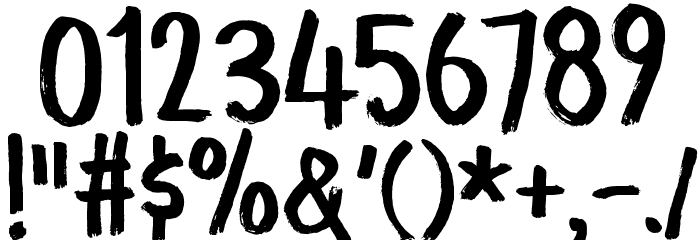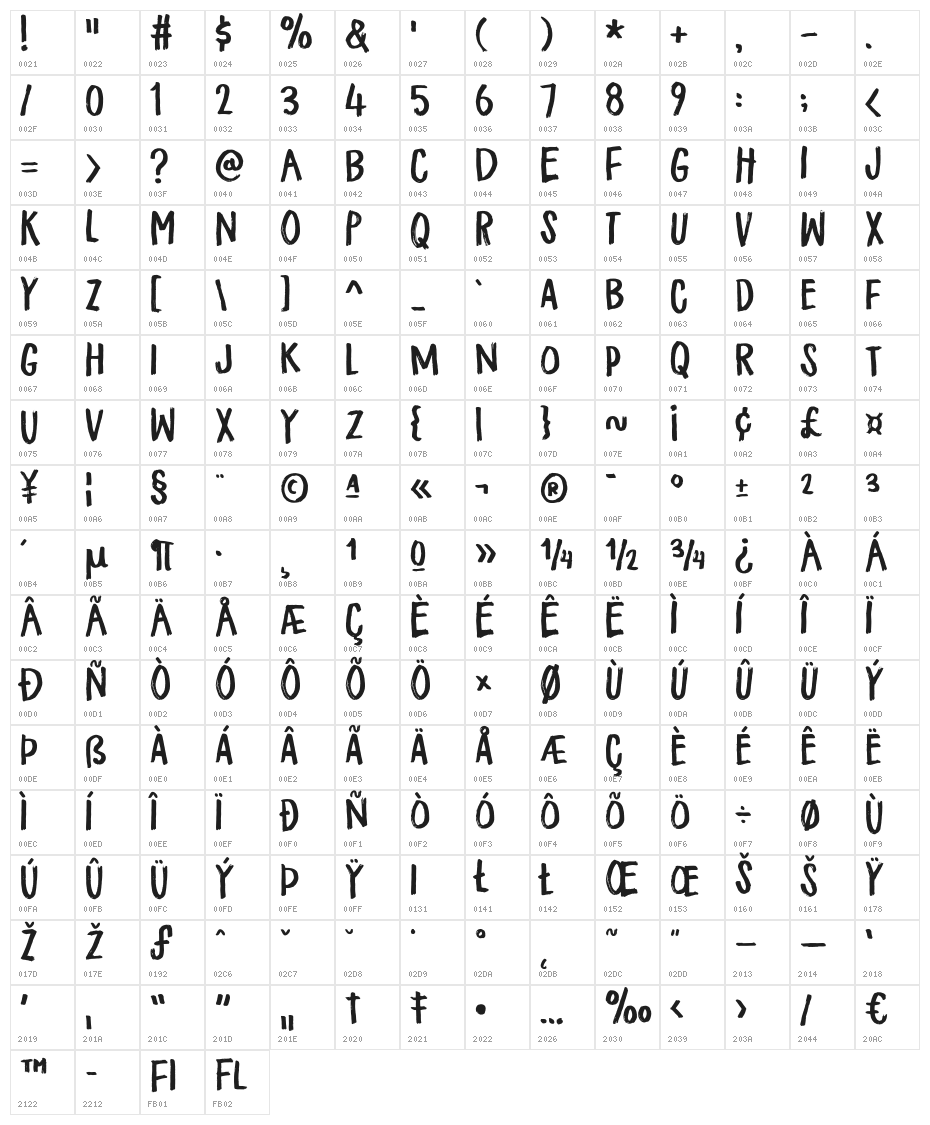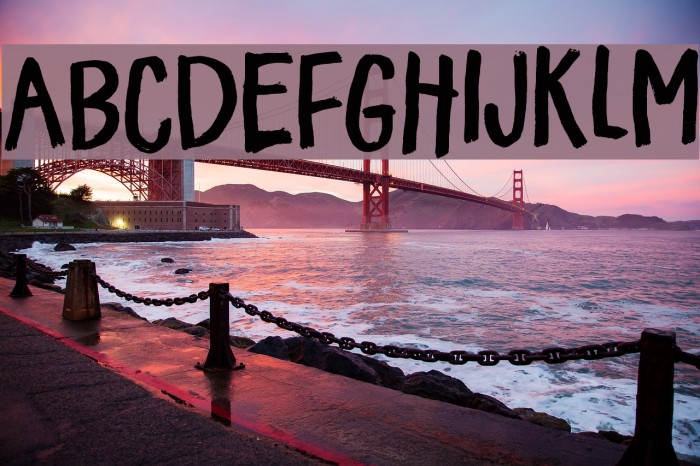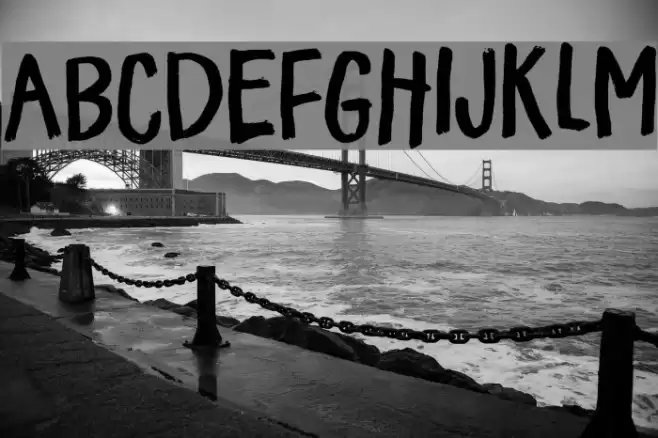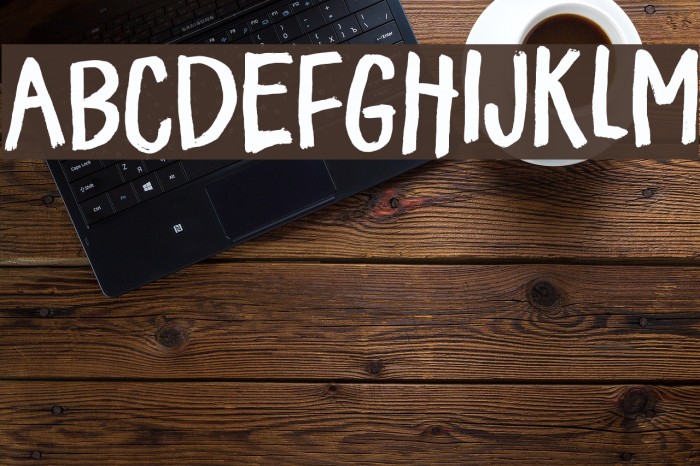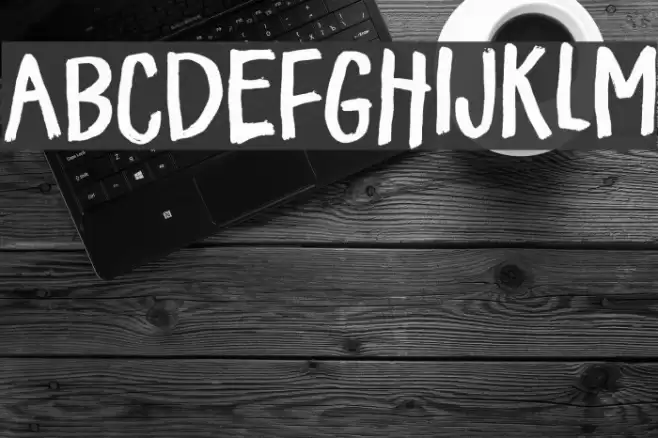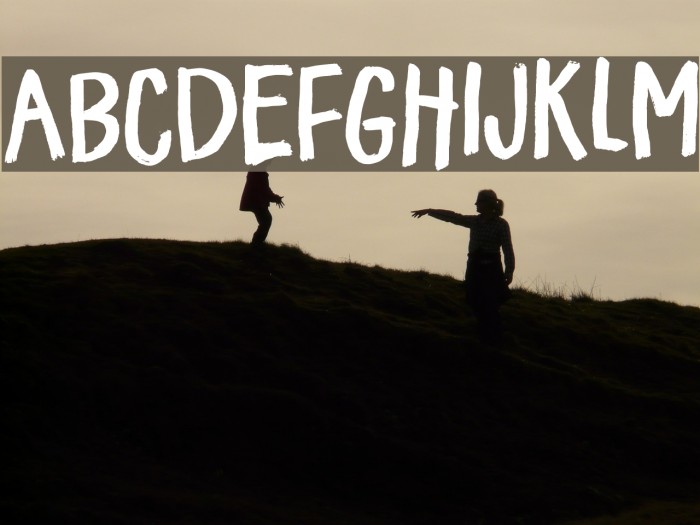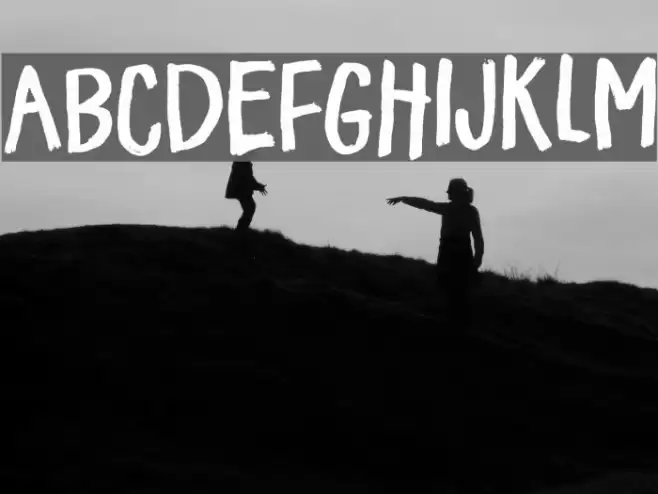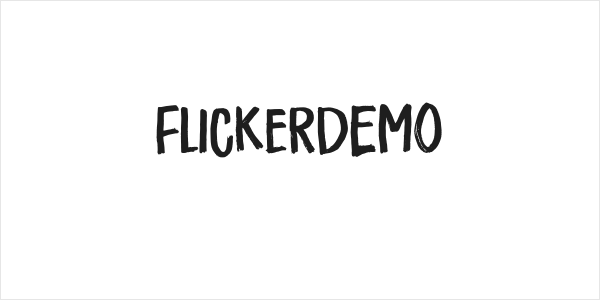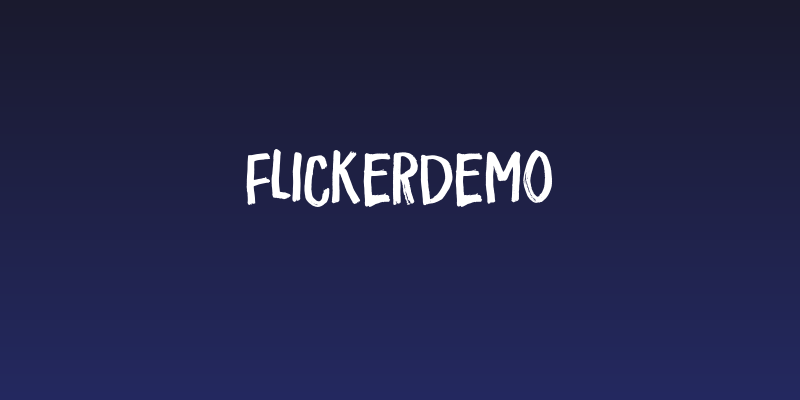
FlickerDEMO Font
FlickerDEMO Description
This font features a bold, hand-painted style that exudes energy and dynamism. The characters are crafted with a rough, textured appearance, reminiscent of brush strokes, giving it an organic and artistic feel. The uppercase and lowercase letters maintain a consistent style, with slightly irregular edges that add to its handcrafted charm. Numbers and special characters are equally bold and expressive, ensuring a cohesive look across all text elements. This font is perfect for projects that require a personal touch or a creative flair, such as posters, branding, and artistic designs.
| Overall Style | Artistic, Handcrafted |
| Proposed Projects | Ideal for posters, branding, artistic designs, and any project needing a creative touch. |